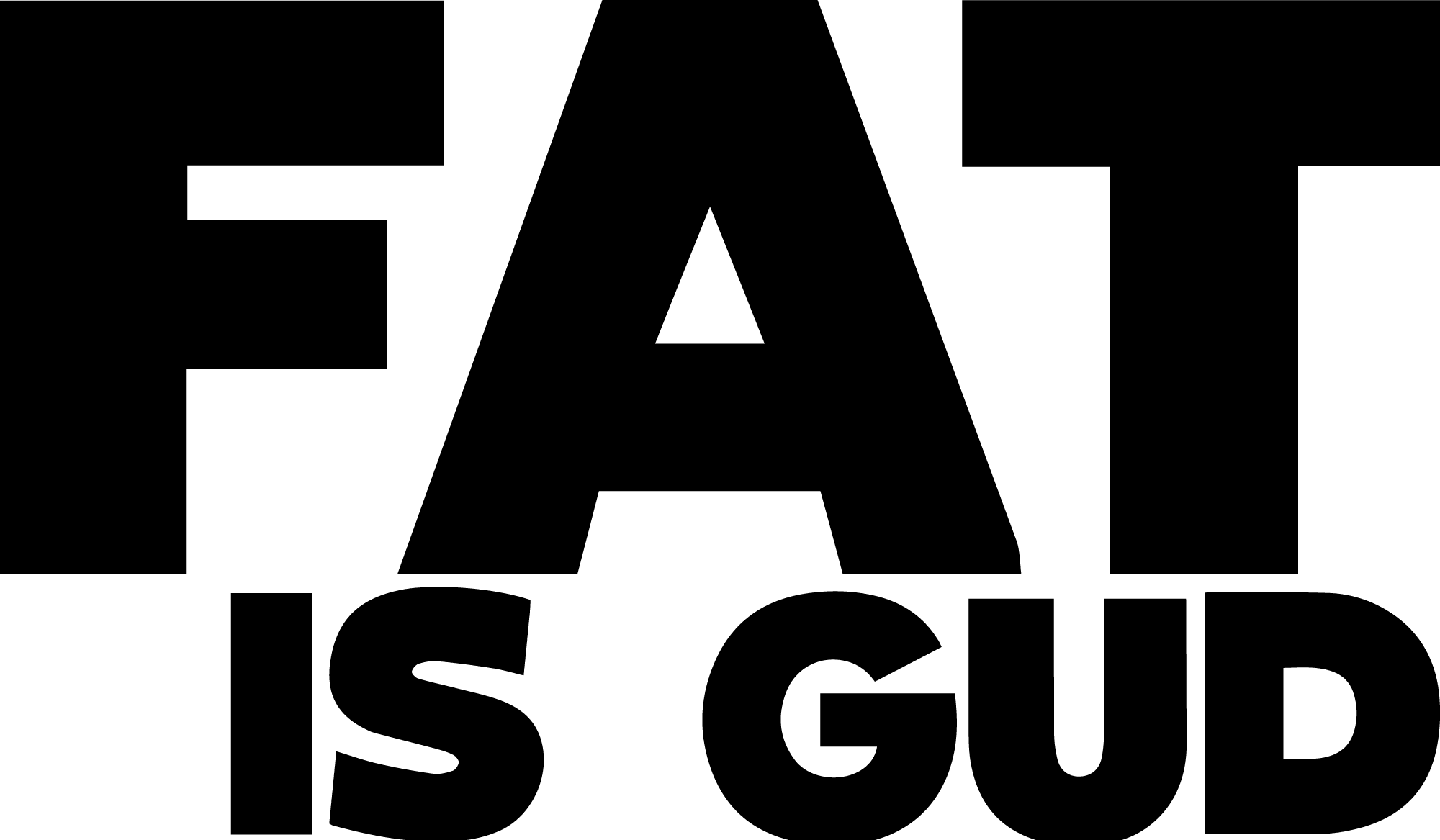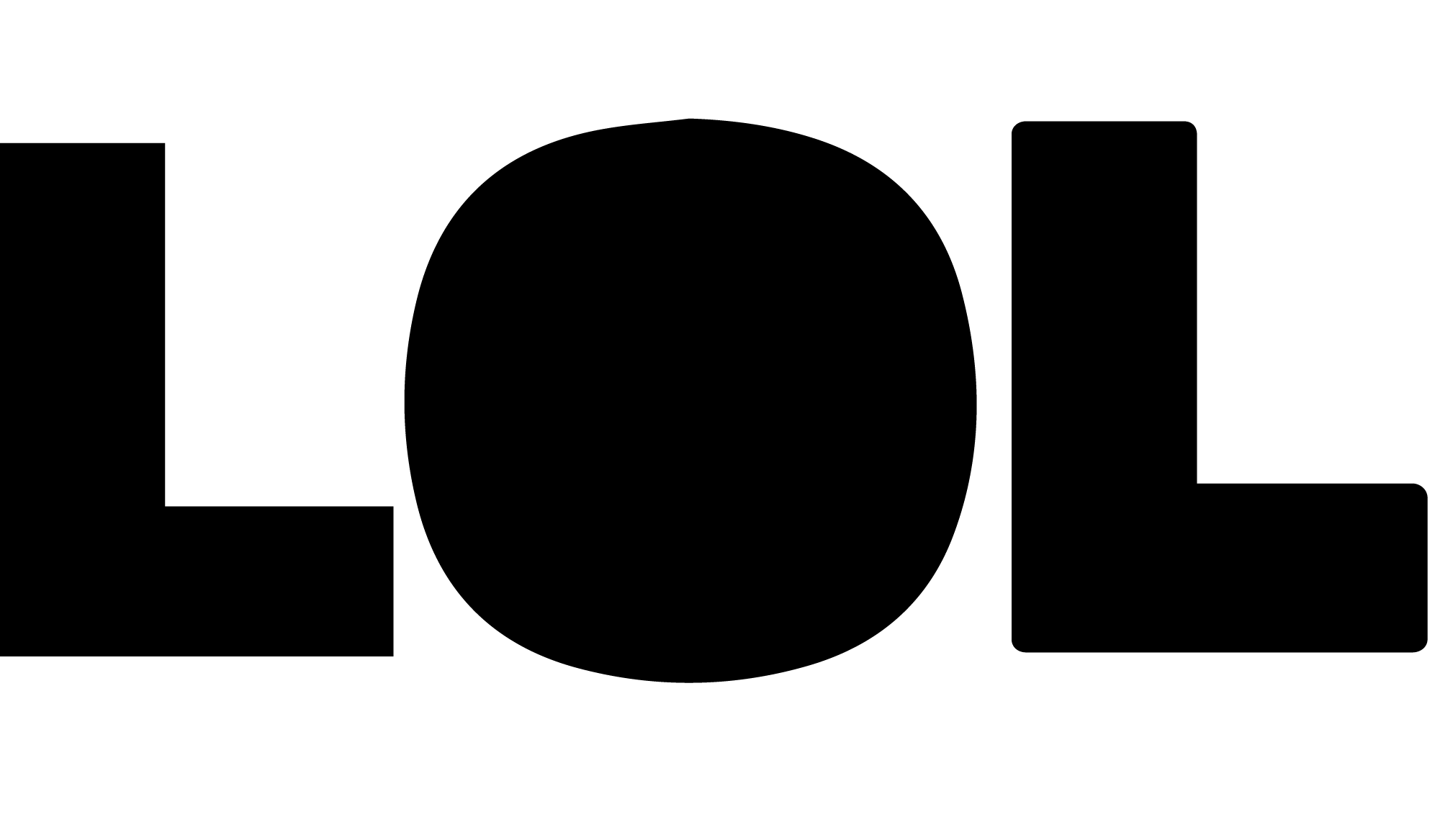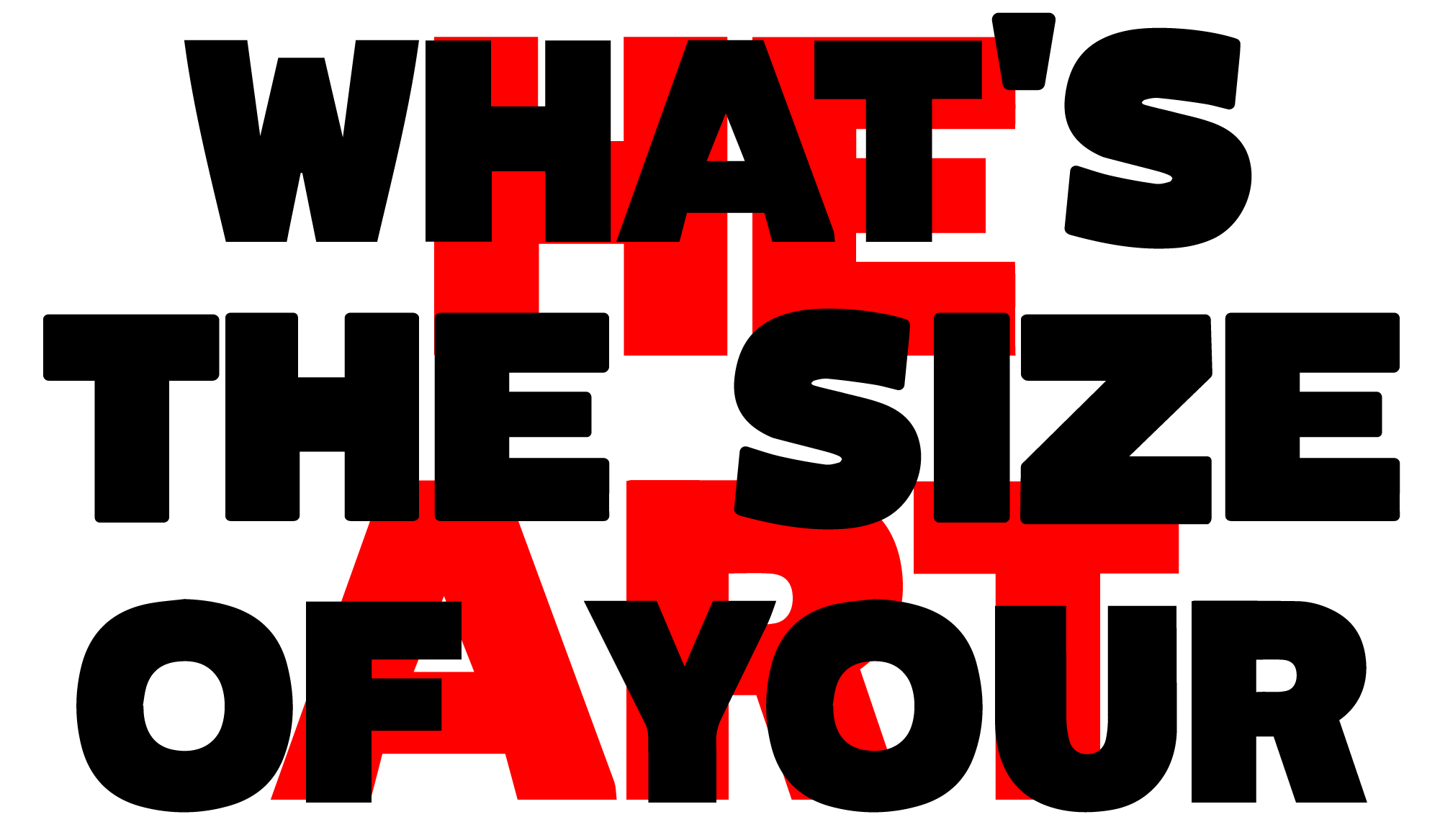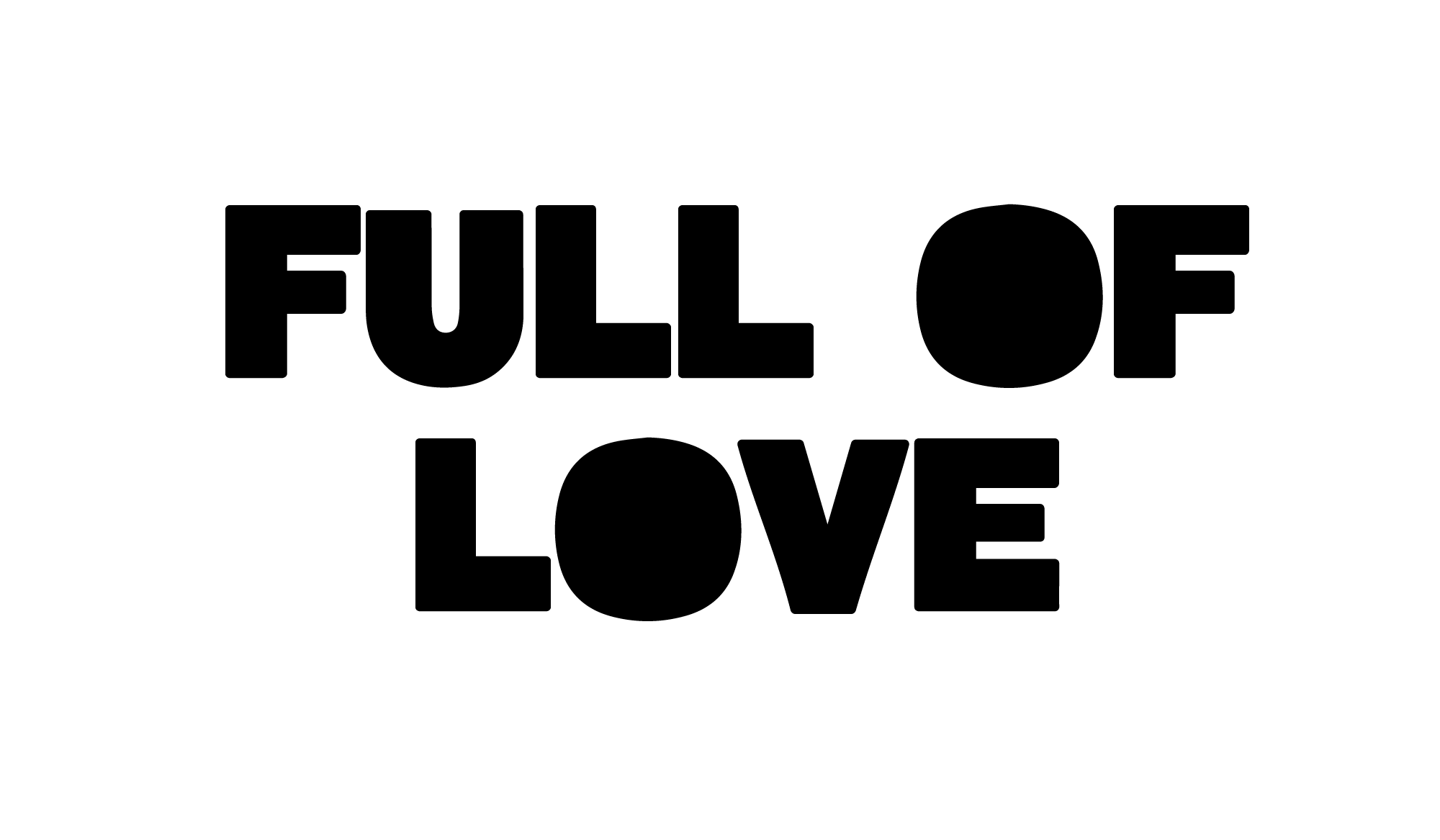
Fat is Gud Font
About the Fat is Gud Font
Elevate your designs with Fat is Gud Font, a font that combines sophistication with readability. Fat is Gud is a fun and stark cutout font; this thick sans serif is wonderful in playful typographic designs, and looks amazing with bold and poppy concepts.
Its bold, playful nature makes it ideal for headlines, short impactful statements, and branding elements where a strong visual presence is desired. Consider using it for posters, packaging for playful products, or even social media graphics. However, its heavy weight and large x-height make it unsuitable for body text or UI elements requiring high readability. Long blocks of text set in Fat is Gud would be difficult to read.
Pairing it with a clean sans-serif like Montserrat for body copy would create a strong visual hierarchy, allowing Fat is Gud to shine in headlines while maintaining readability elsewhere. Alternatively, a delicate script font could provide an interesting contrast, adding a touch of elegance to balance the boldness. Avoid pairing it with other similarly heavy fonts, which would create a visually overwhelming effect.
Fat is Gud’s core personality is undeniably bold and playful, yet it retains a certain modern edge. It’s best suited for brands that project a confident, fun, and slightly rebellious image—think streetwear, playful food brands, or children’s entertainment.
Fat is Gud Font Usage Examples
Fat is Gud Font Example